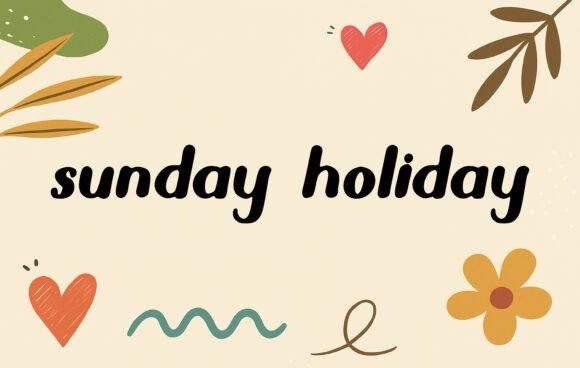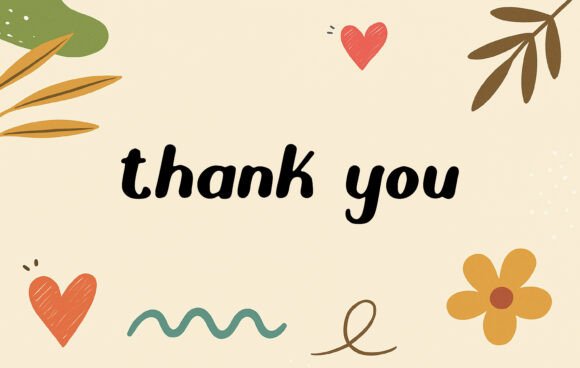
Unlock Your Creative Potential with Aisyah Font
Have you ever stared at a blank page, waiting for the perfect font to spark your creativity? The right font can be the difference between a good design and a great one. For designers, finding that elusive font that elevates their work can be a game-changer. Enter Aisyah Font, a versatile and stylish typeface designed to take your creative ideas to new heights.
Aisyah Font is more than just a pretty face – it’s a reliable companion for any design project. Whether you’re crafting magazine headlines, social media posts, or wedding invitations, this font has got you covered. Its legibility and timeless charm make it perfect for body text and titles alike, ensuring your message shines through in any format.
Aisyah Font Key Features
- Font Family: Aisyah is a script font, ideal for creative and elegant designs.
- Unique Characteristics: Aisyah features intricate, cursive script with a touch of traditional elegance, making it perfect for invitations, wedding designs, and other creative projects.
- Language Support: Supports multiple languages, including Latin-based languages, making it a versatile font for global designs.
A Designer’s Review of Aisyah Font
I recently had the chance to work with Aisyah Font, and I must say, it’s a unique and intriguing typeface. ✨ One thing that stands out is its eclectic mix of script and serif elements, which gives it a distinct personality. The font is perfect for designers looking to add a touch of whimsy and elegance to their projects.
Here are some of the things that I particularly enjoy about Aisyah Font:
- ✨ Highly legible, even at small font sizes
- ✨ Offers a wide range of weights and styles, making it suitable for various design applications
- ✨ Unique aesthetic that sets it apart from more traditional fonts
- ⚠️ Not ideal for formal or professional projects, as its eccentricity may not be suitable for all audiences
- ⚠️ Some users may find it difficult to read at very large font sizes, due to its irregular stroke widths
Overall, I think Aisyah Font is a great choice for designers who want to add a bit of flair to their work. While it may not be suitable for every project, it’s certainly a versatile and stylish option to consider.
Tips for Getting the Most Out of Aisyah Font
Here are some tips to get the most out of Aisyah Font:
- Use Aisyah Font for headings and titles to create a professional and elegant look.
- Combine Aisyah Font with other fonts to create a unique and visually appealing design.
- Experiment with different font sizes, colors, and styles to achieve your desired design.
Aisyah Font is commonly used for:
Alternatives to Aisyah Font
Ostrich Sans is a sans-serif font with a modern, clean aesthetic. It is suitable for use in digital products, such as apps, websites, and video games, where a clear and legible font is necessary. Ostrich Sans is more geometric and modern than Aisyah Font, which has a more organic feel.
Lato is a sans-serif font with a clean and elegant design. It is suitable for use in a variety of contexts, including print and digital media. Lato is more formal and sophisticated than Aisyah Font, which has a more casual feel.
Open Sans is a sans-serif font with a clean and modern design. It is suitable for use in digital products, such as websites, apps, and video games, where a clear and legible font is necessary. Open Sans is more versatile and widely used than Aisyah Font, which has a more unique feel.
Q: What is the recommended font size for using the Aisyah font in print and digital applications?
The recommended font size for the Aisyah font varies depending on the application and the intended audience. For body text, a font size of 10-12 points is recommended for print applications, while 14-16 points is recommended for digital applications. For headings and titles, a font size of 18-24 points is recommended for print applications, while 24-36 points is recommended for digital applications. However, these are general guidelines, and the